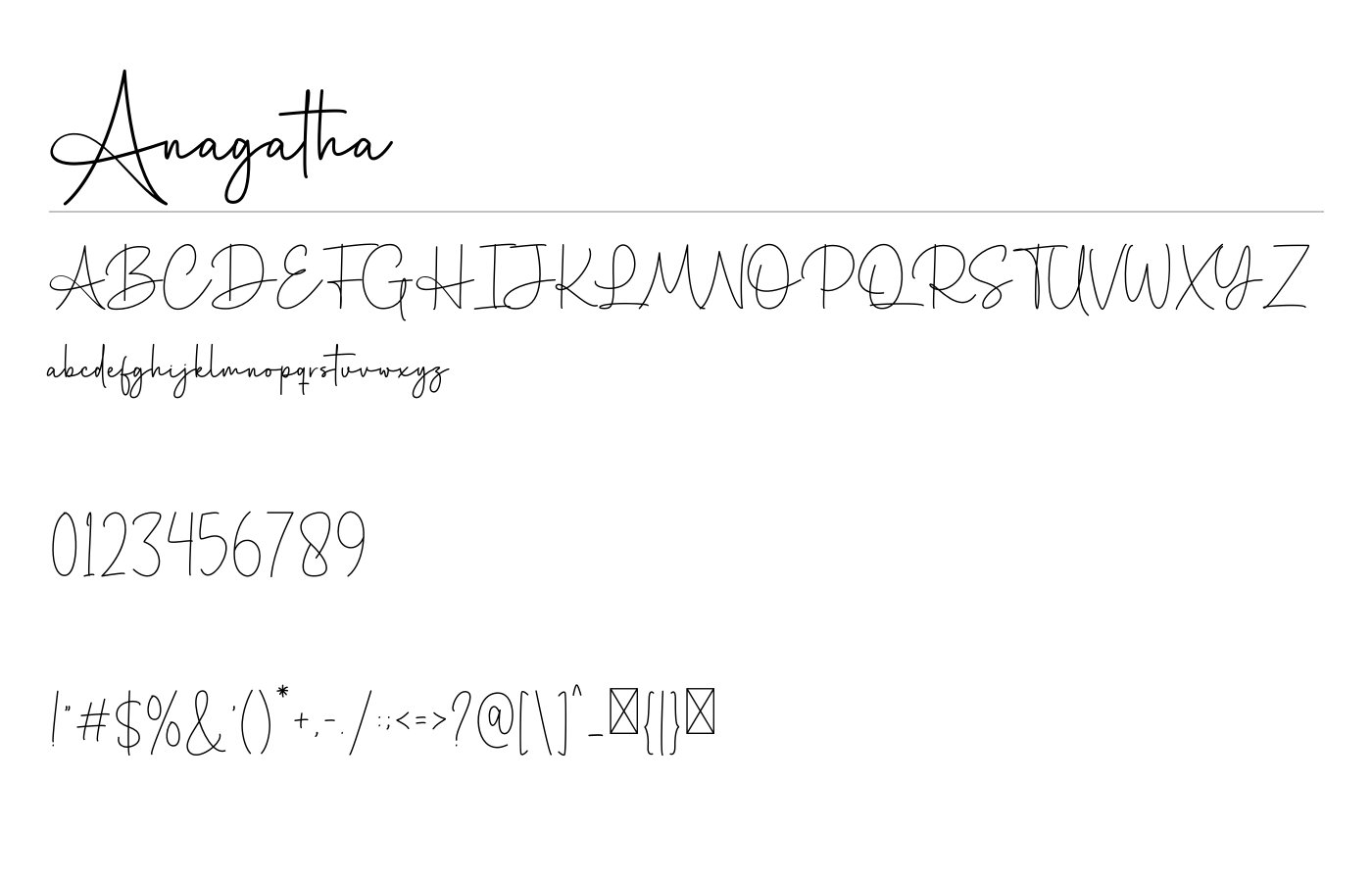
Anagatha is a delicate, handwritten script font characterized by its thin, whimsical strokes and tall, slender letterforms. Its airy and elegant style gives it a personal, artistic feel, making it ideal for branding, invitations, and creative projects that seek a refined yet approachable touch. This font works best in designs that benefit from a light, sophisticated handwritten aesthetic without sacrificing legibility.
Anagatha Font
About Anagatha Font
| Font family | Anagatha Font |